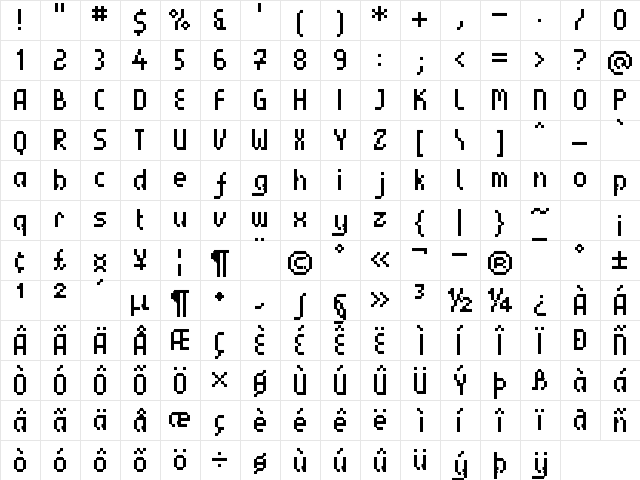
UF PT Lucy Condensed Regular
| Foundry | Ultrafonts |
| Designer | Hugo Perez of PixieType |
Design Context for UF PT Lucy Condensed Typeface
UF PT Lucy Condensed takes a measured approach to typography — its balanced proportions and neutral character make it a reliable workhorse for both digital and print work. The condensed width makes it efficient for tight spaces without sacrificing legibility.